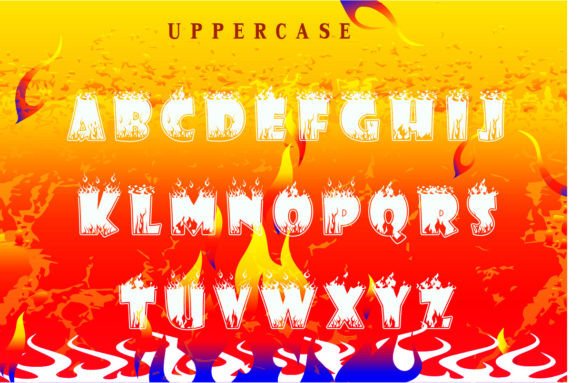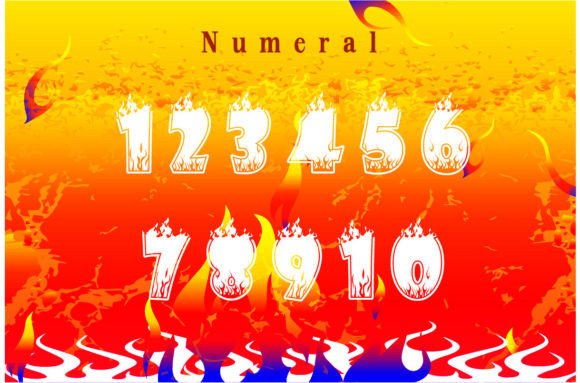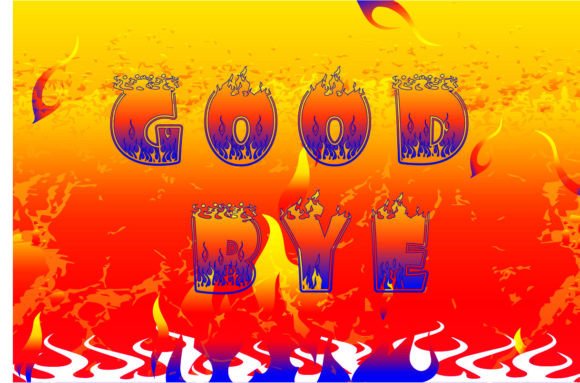
Ignite Your Creativity with Fire Font: A Unique Decorative Font for Designers and Crafters
Are you looking for a font that can add a spark to your creative projects? Look no further than Fire Font, a unique decorative font that is perfect for designers, crafters, and anyone looking to add a touch of excitement to their work. With its bold, fiery design, Fire Font is sure to make your projects stand out and leave a lasting impression.
What is Fire Font?
Fire Font is a specially designed font that features a bold, flame-inspired design. Its unique and eye-catching style makes it perfect for use in a variety of creative projects, from crafting and t-shirt designs to posters, digital designs, presentations, book covers, and more. Whether you’re looking to add a touch of warmth and energy to your work or simply want to make a bold statement, Fire Font is the perfect choice.
Why Use Fire Font?
There are many reasons why Fire Font is a great choice for designers and crafters. Here are just a few:
- Unique and eye-catching design: Fire Font features a bold, flame-inspired design that is sure to grab attention and leave a lasting impression.
- Versatile: Fire Font can be used in a wide range of creative projects, from crafting and t-shirt designs to posters, digital designs, presentations, book covers, and more.
- High-quality design: Fire Font is designed with high-quality and clarity in mind, ensuring that it looks great even at large sizes.
- Experiment with different styles: Fire Font comes in a variety of styles, so feel free to experiment and find the one that works best for your project.
Ideas for Using Fire Font
Fire Font is a versatile font that can be used in a wide range of creative projects. Here are some ideas to get you started:
- Crafting projects: Use Fire Font to add a touch of excitement to your crafting projects, such as scrapbooking, card making, and more.
- T-shirt designs: Create bold and eye-catching t-shirt designs with Fire Font.
- Posters and flyers: Use Fire Font to create attention-grabbing posters and flyers for events, promotions, and more.
- Digital designs: Add a touch of fire to your digital designs, such as social media graphics, blog posts, and more.
- Presentations: Use Fire Font to add a bold and eye-catching touch to your presentations.
- Book covers: Create a striking book cover with Fire Font.
| Font Name | Fire Font |
| Author | Suming Kreatif |
Fire Font is a unique and versatile decorative font that is perfect for designers, crafters, and anyone looking to add a touch of excitement to their creative projects. With its bold, flame-inspired design and ease of use, Fire Font is sure to ignite your creativity and help you create stunning projects that leave a lasting impression.